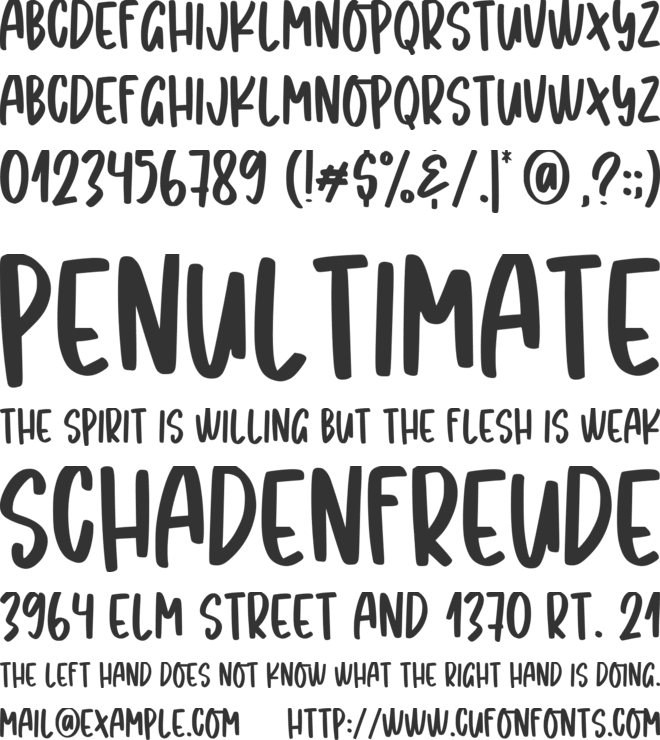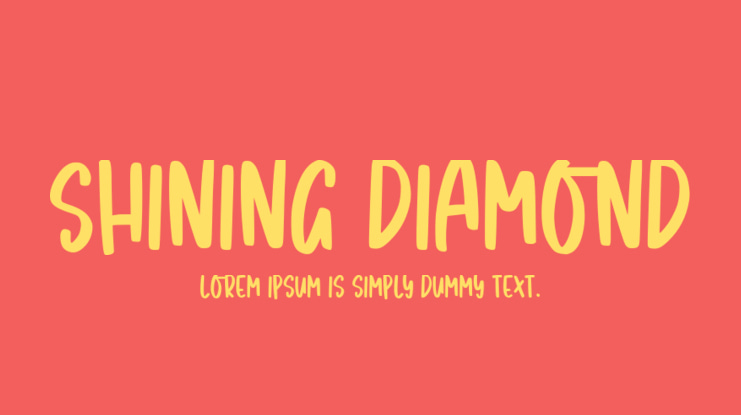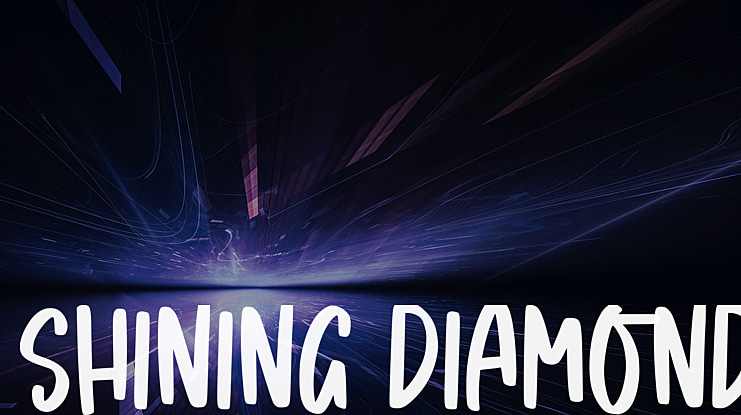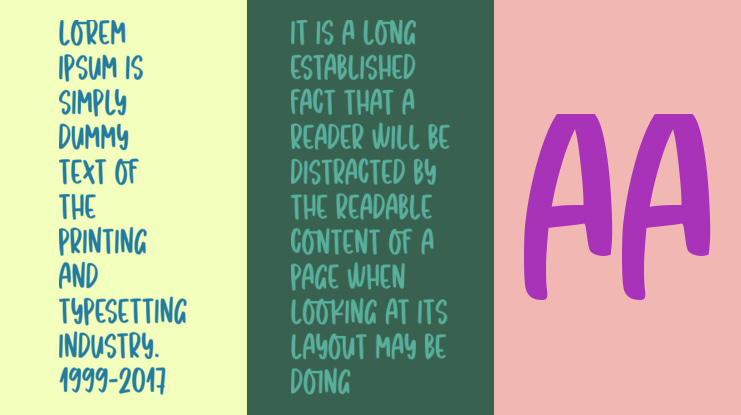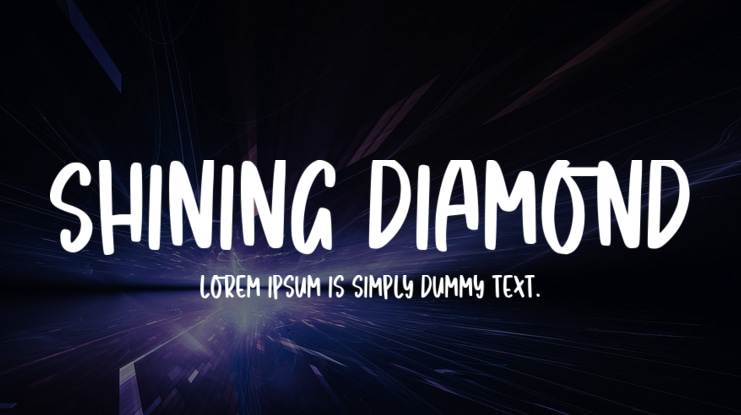
Shining Diamond Font
SHINING DIAMOND - quirky font trio -
SHINING DIAMOND is natural handwritten font. come with 3 styles, solid, neon, and dot. it is very eye catching. I designed it special for neon project. It is great for packaging, branding, quotes, cards, banner, book, cutting, silhouette, social media content and anything of your craft project. The combination of solid and dot are perfect.